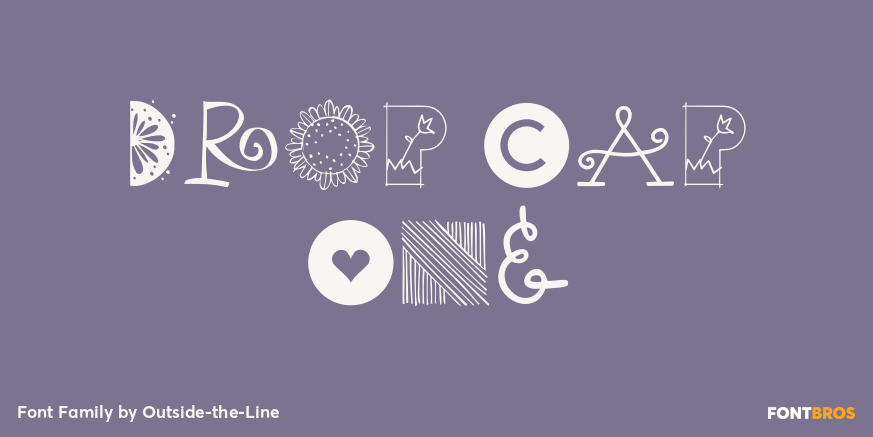
Drop Cap One
About Drop Cap One
Drop Cap One is a drop cap or an initial cap font. Even though it has all the letters of the alphabet it is not an alphabet font to be used for headlines or body copy. It has no kerning or punctuation except a period. It does have accent marks. There…